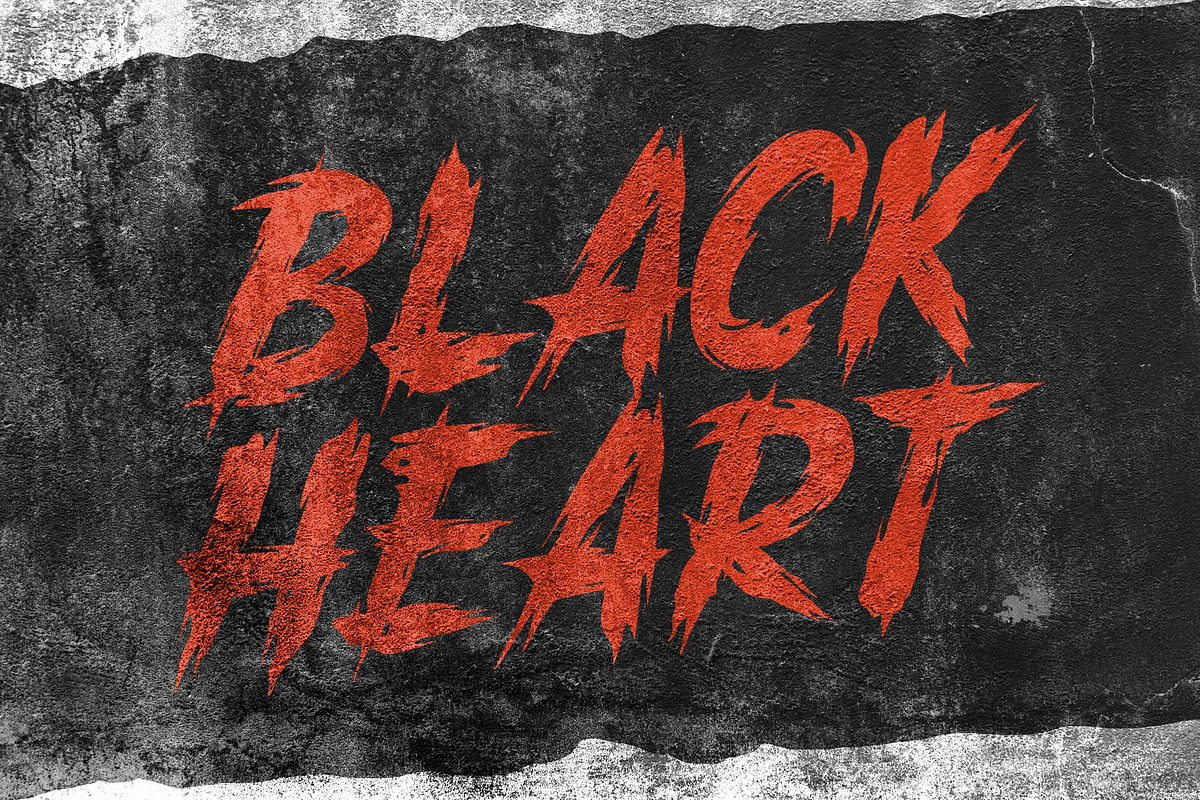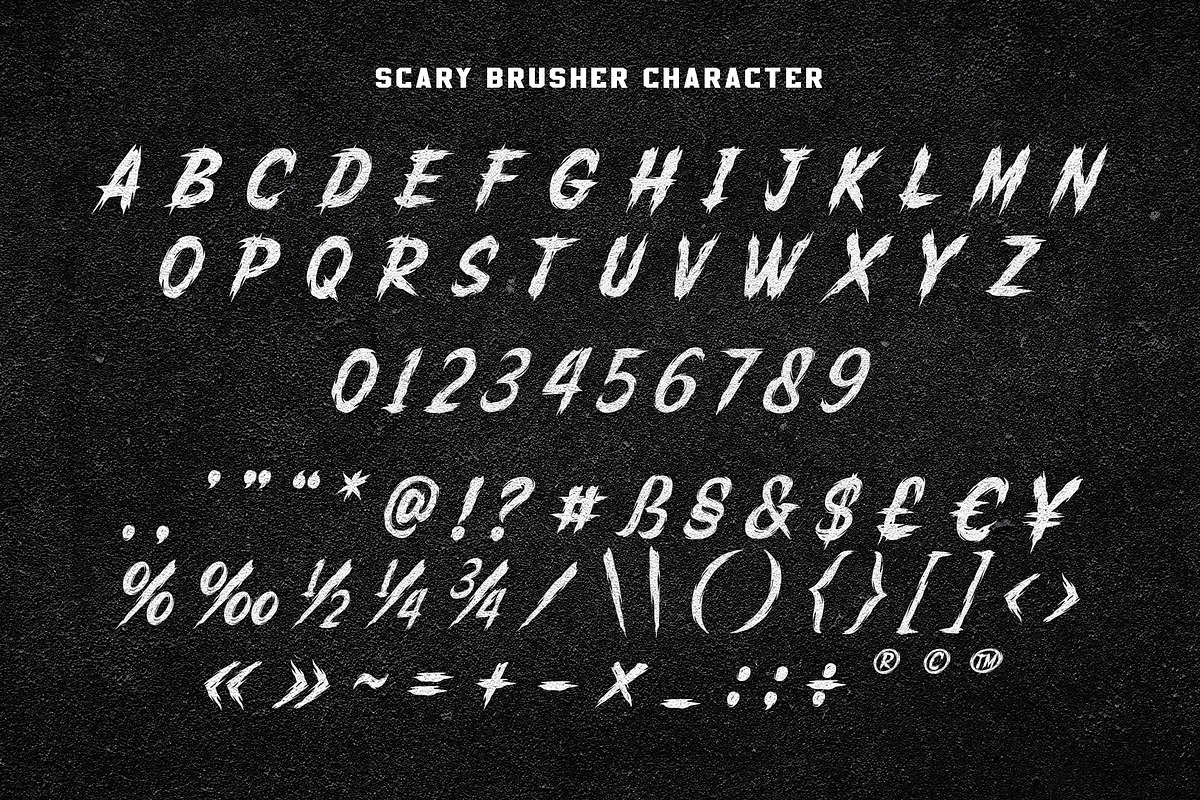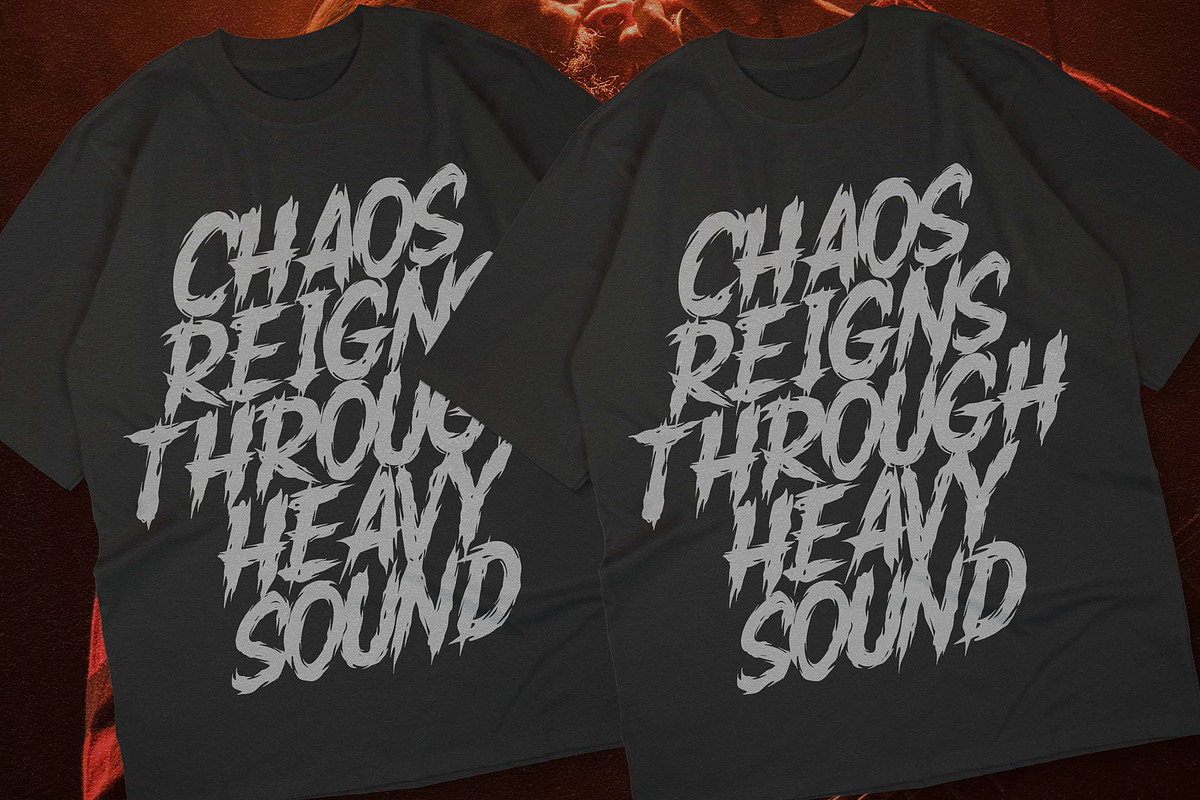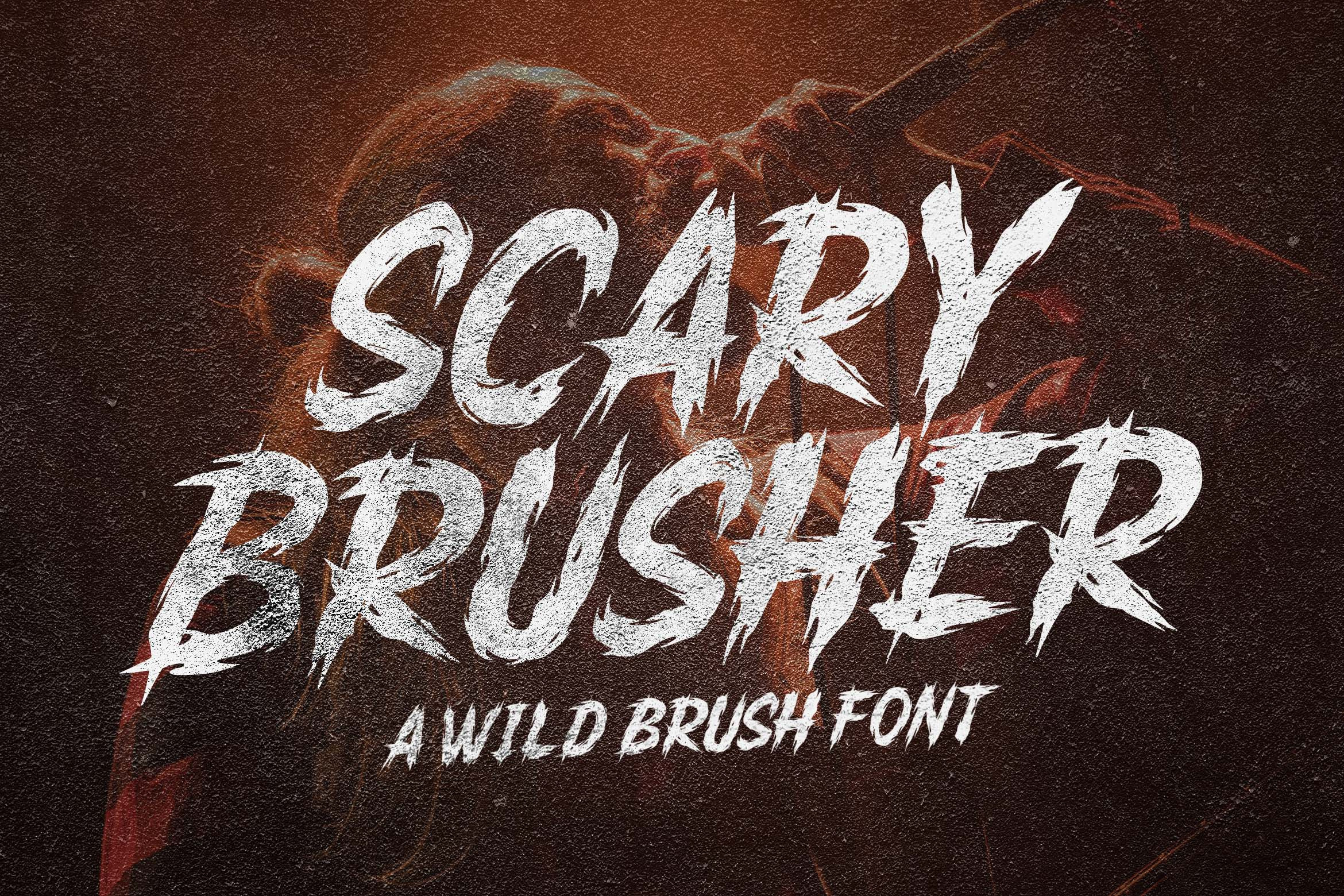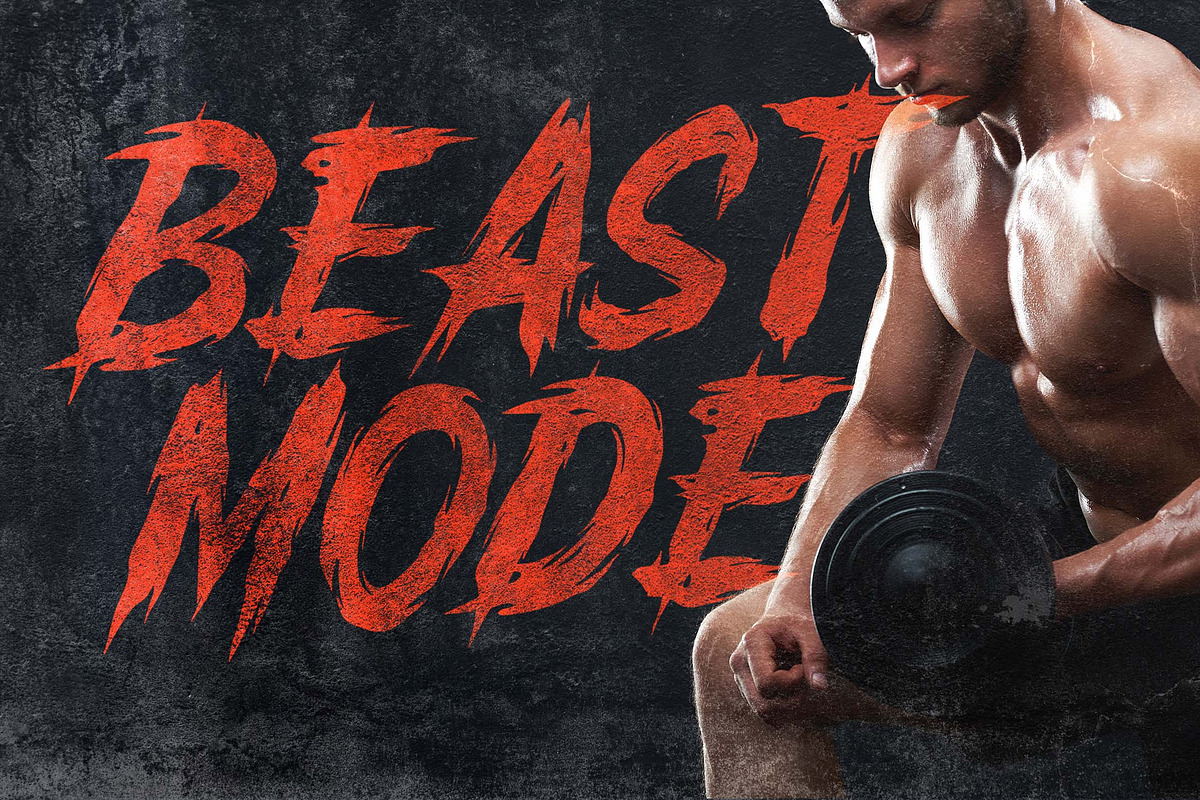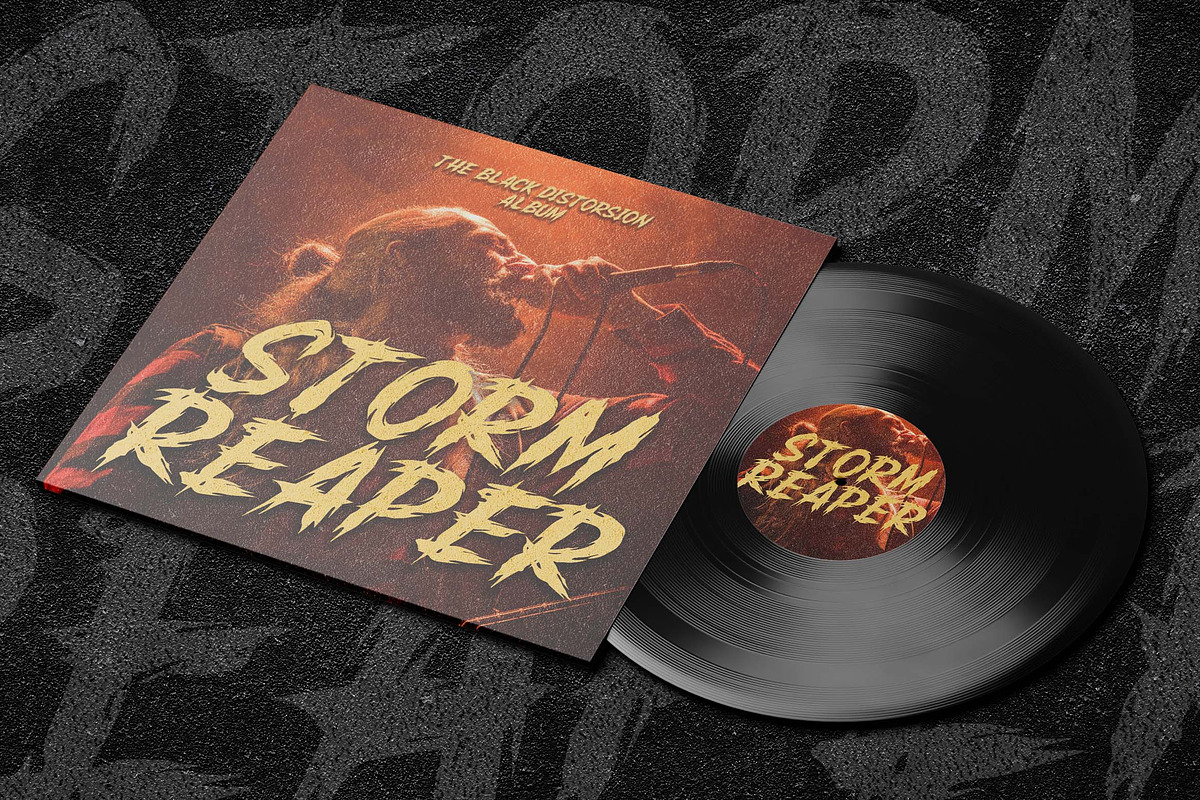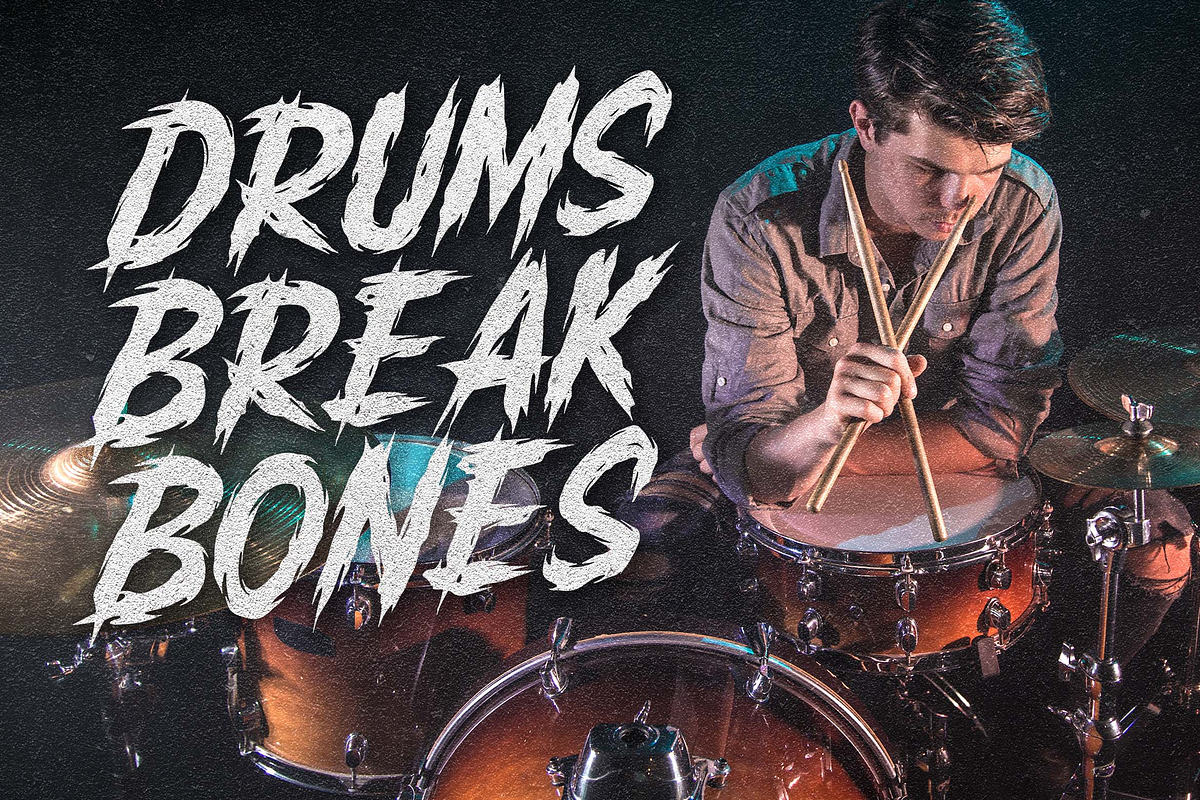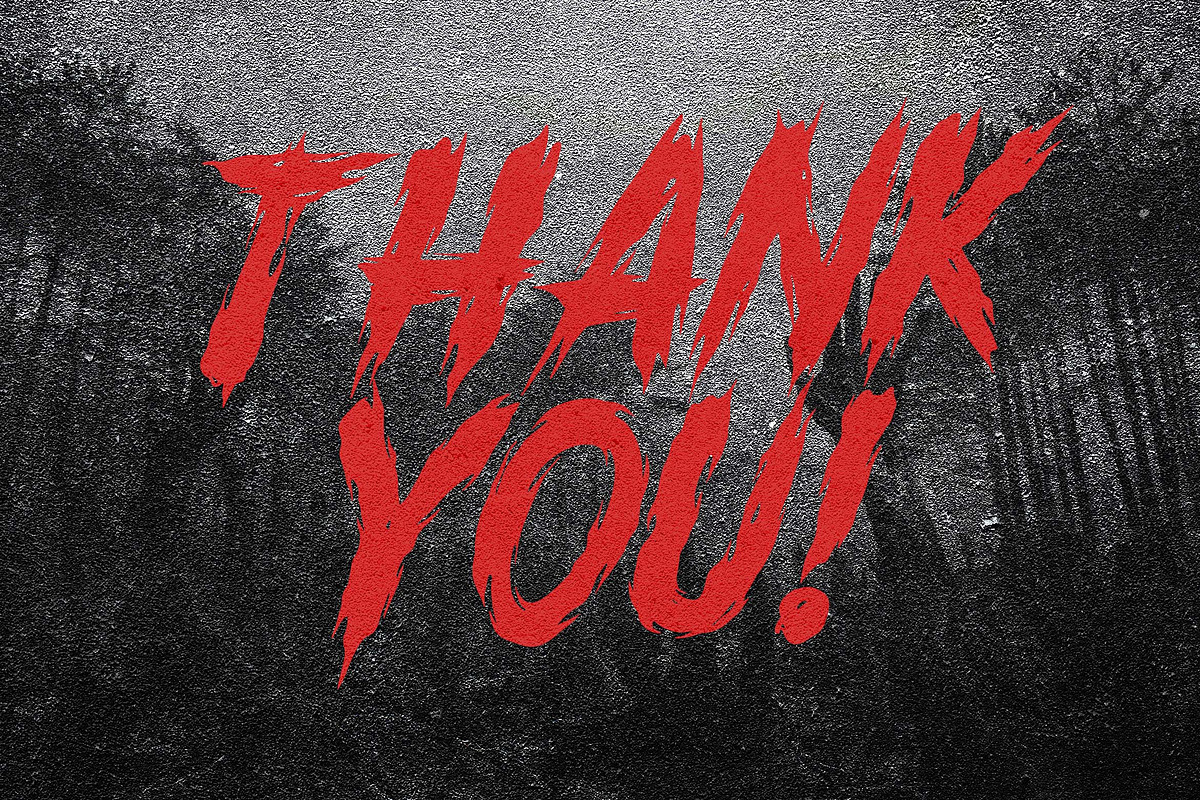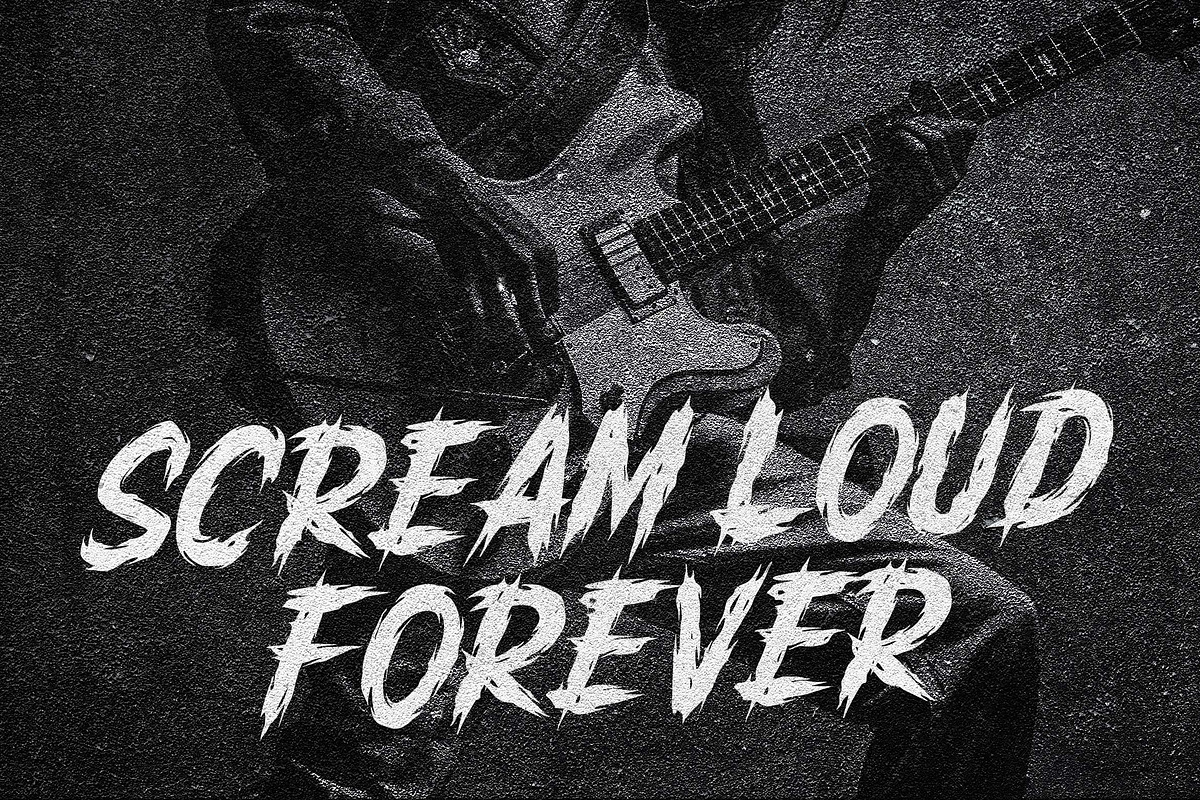
Scary Brusher a Wild Brush Font
Scary Brusher a Wild Brush Font is made for any professional project branding, such as logotype, watermarks, poster, branding, promotions, product packaging, etc. Every letter has a playful brush style design. This font comes Otf. and Ttf.
Scary Brusher Font includes a full set of brush uppercase and lowercase letters, numerals and punctuation. This font has a retro style. See the previews above to get some inspiration on how to use them. Happy designing!